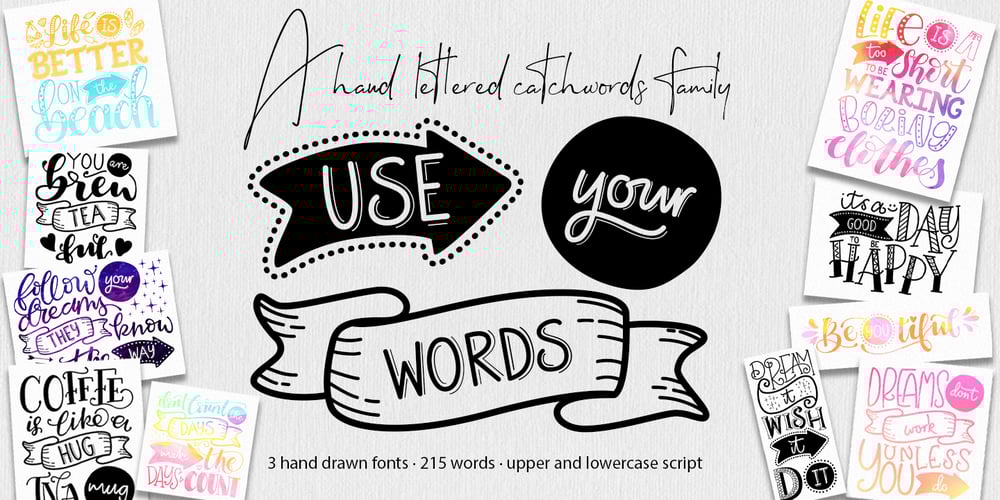
Use Your Words Font Family was designed by Joanne Hewitt and published by Joanne Marie. Use Your Words contains 3 styles and family package options. Here’s a different kind of font for the hand lettered look! Use Your Words is a catchwords font family consisting of 3 fonts:1.) Use Your Words Circles2.) Use Your Words Arrows3.) Use Your Words BannersIt’s all hand drawn and hand lettered in a monoline script font with a shadow effect to boot. This font will be perfect to include on designs such as mugs, t-shirts, bags, notebooks, inspirational quotes for the home and office, and more.There are 215 words (no more than 4 letters per word) in both upper and lowercase, plus numbers, ampersand, question and exclamation marks in all three styles. There are 444 glyphs per font.I love using this font in my hand lettering designs and I hope you will too!